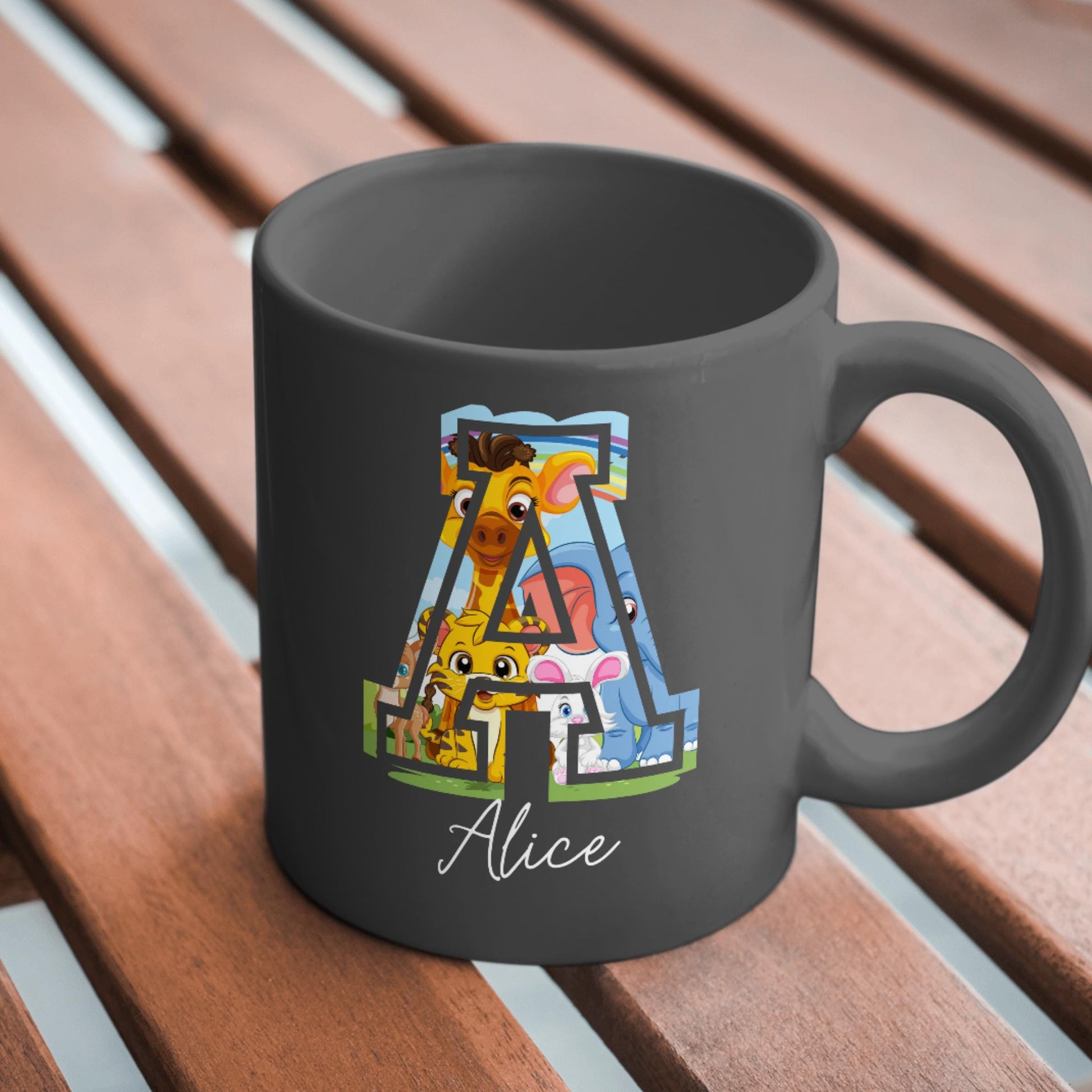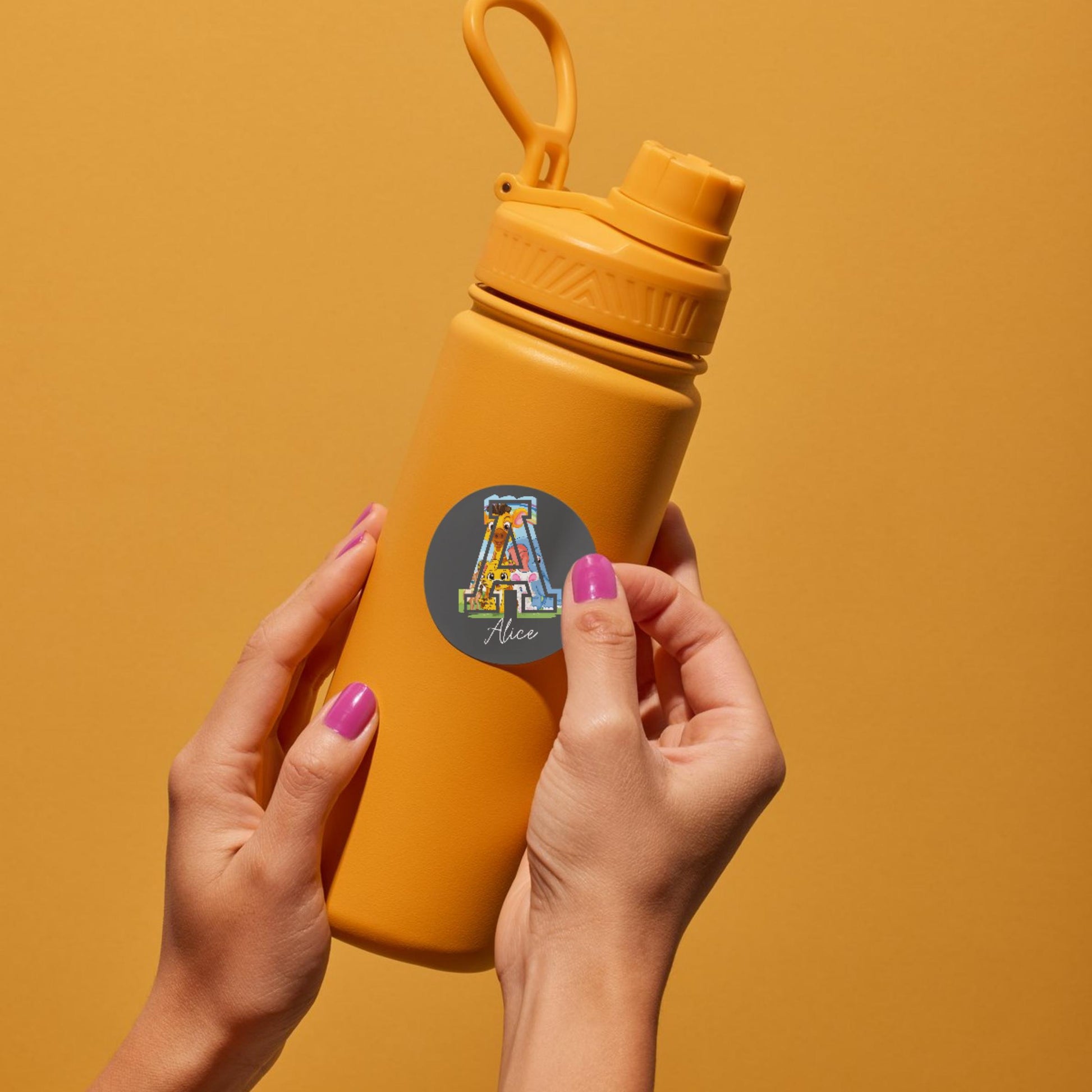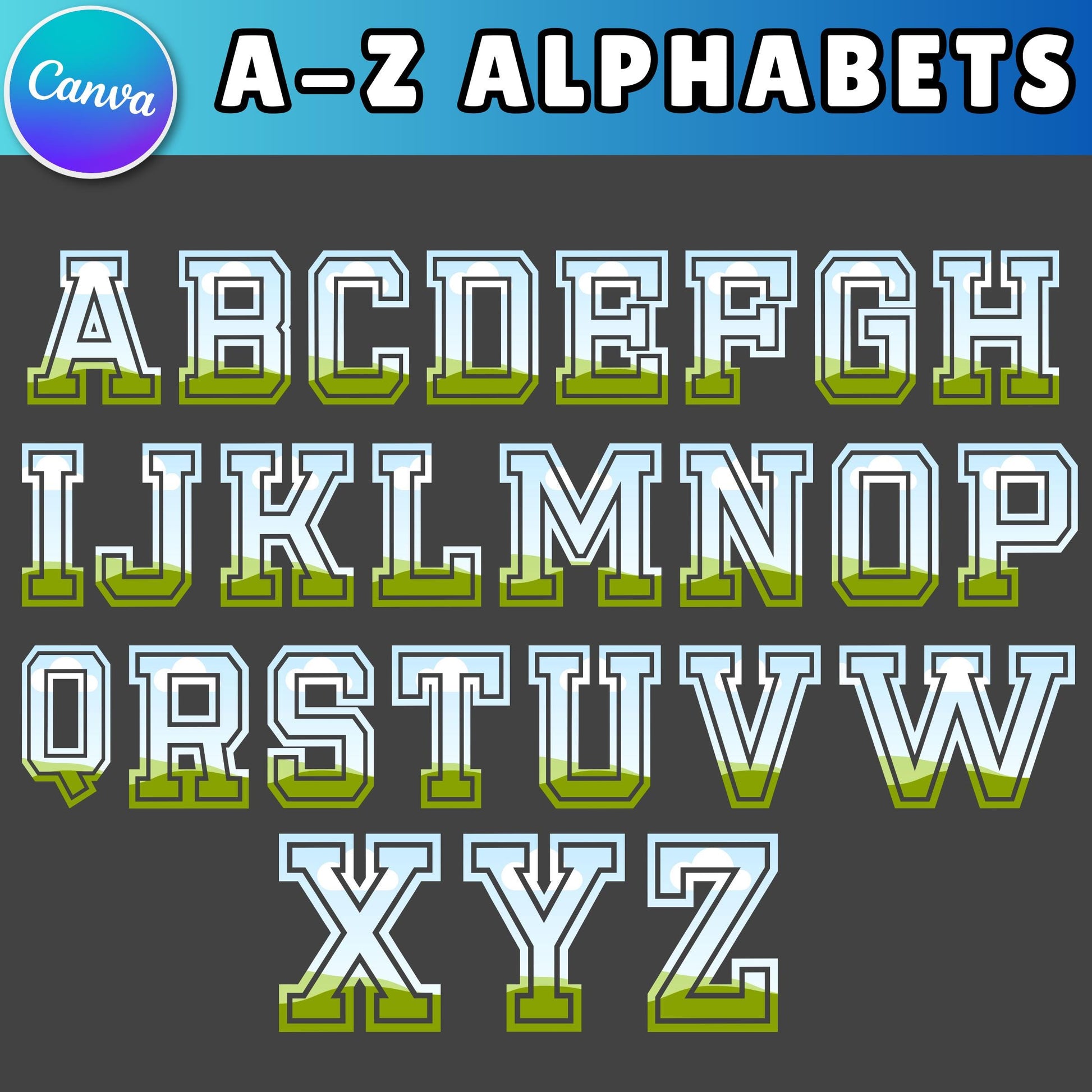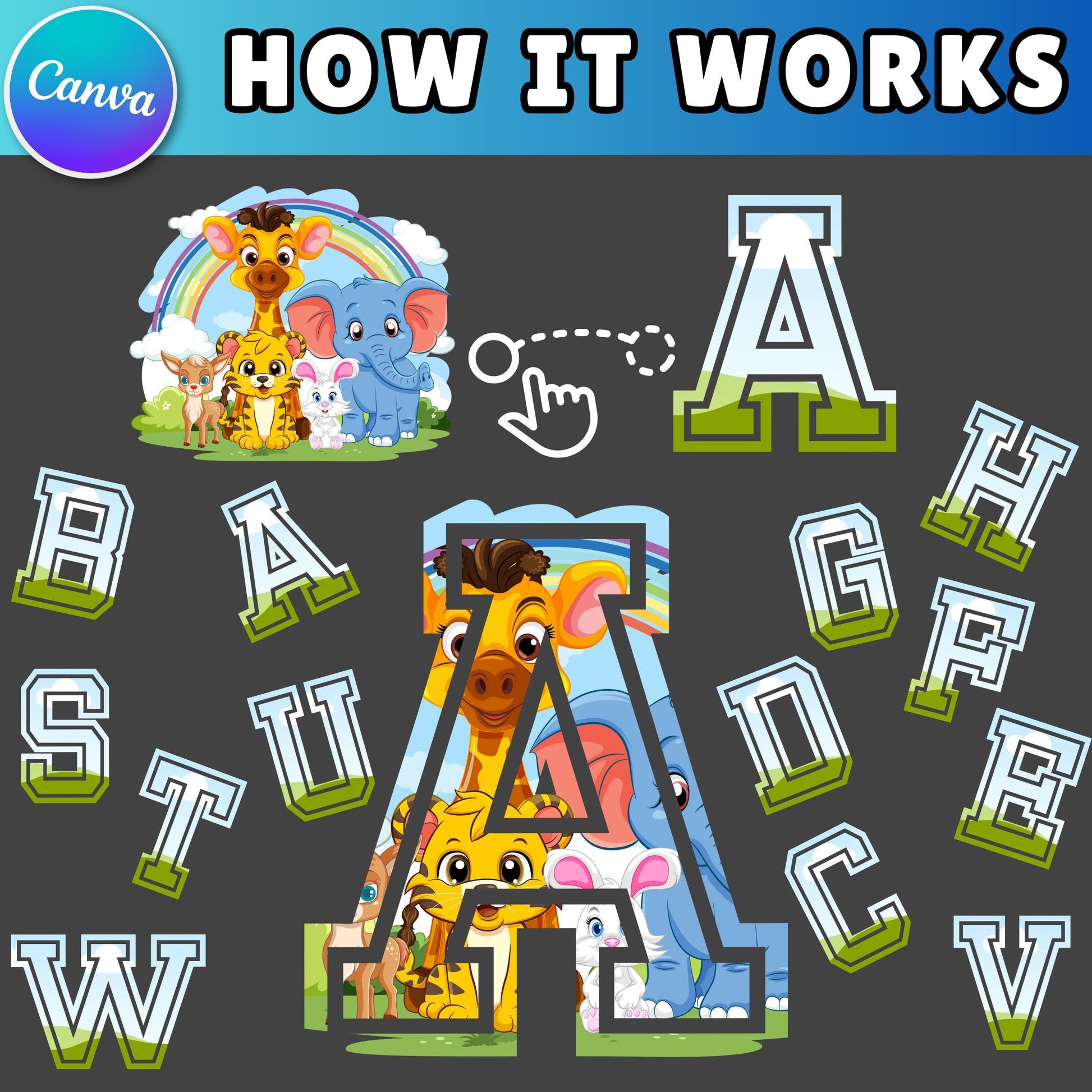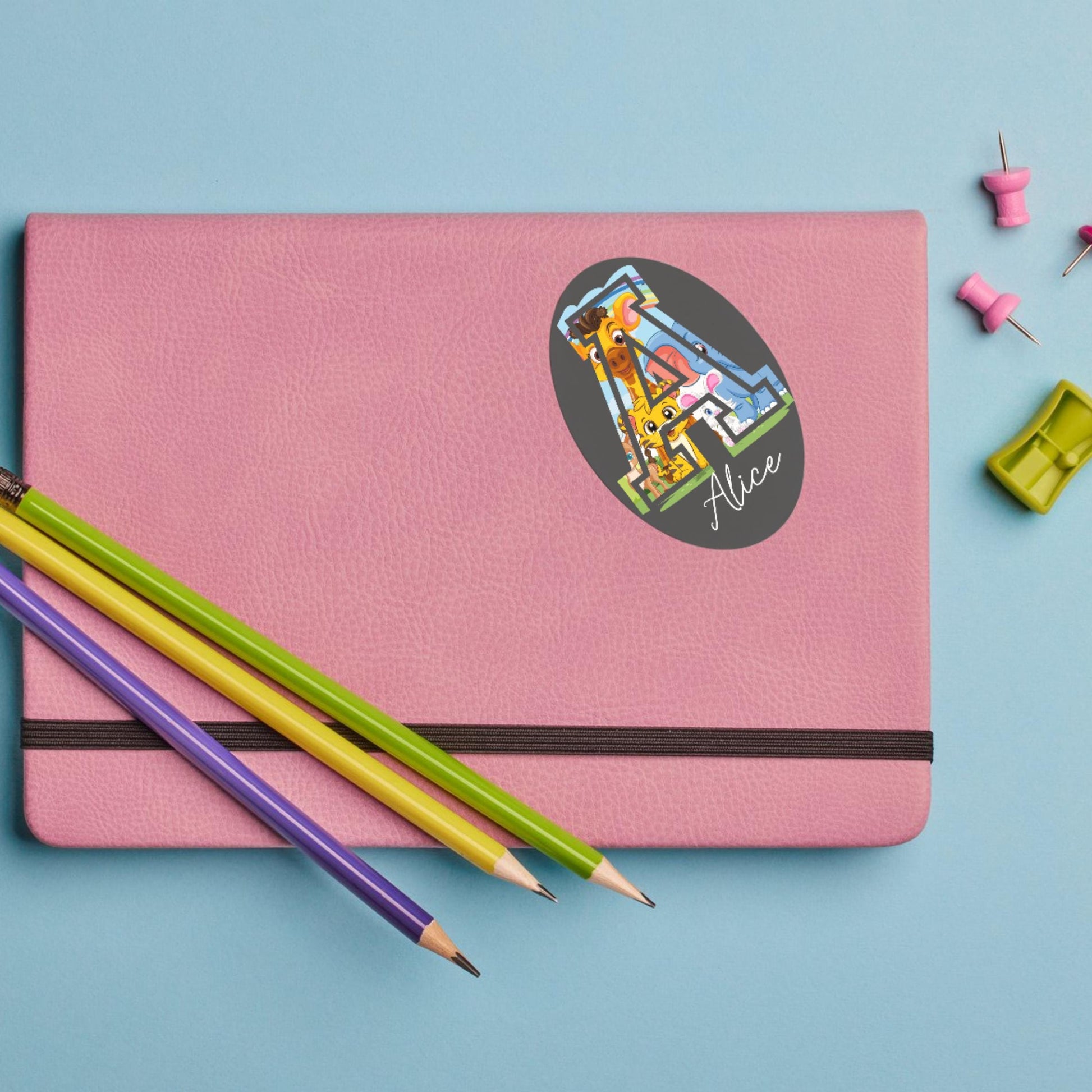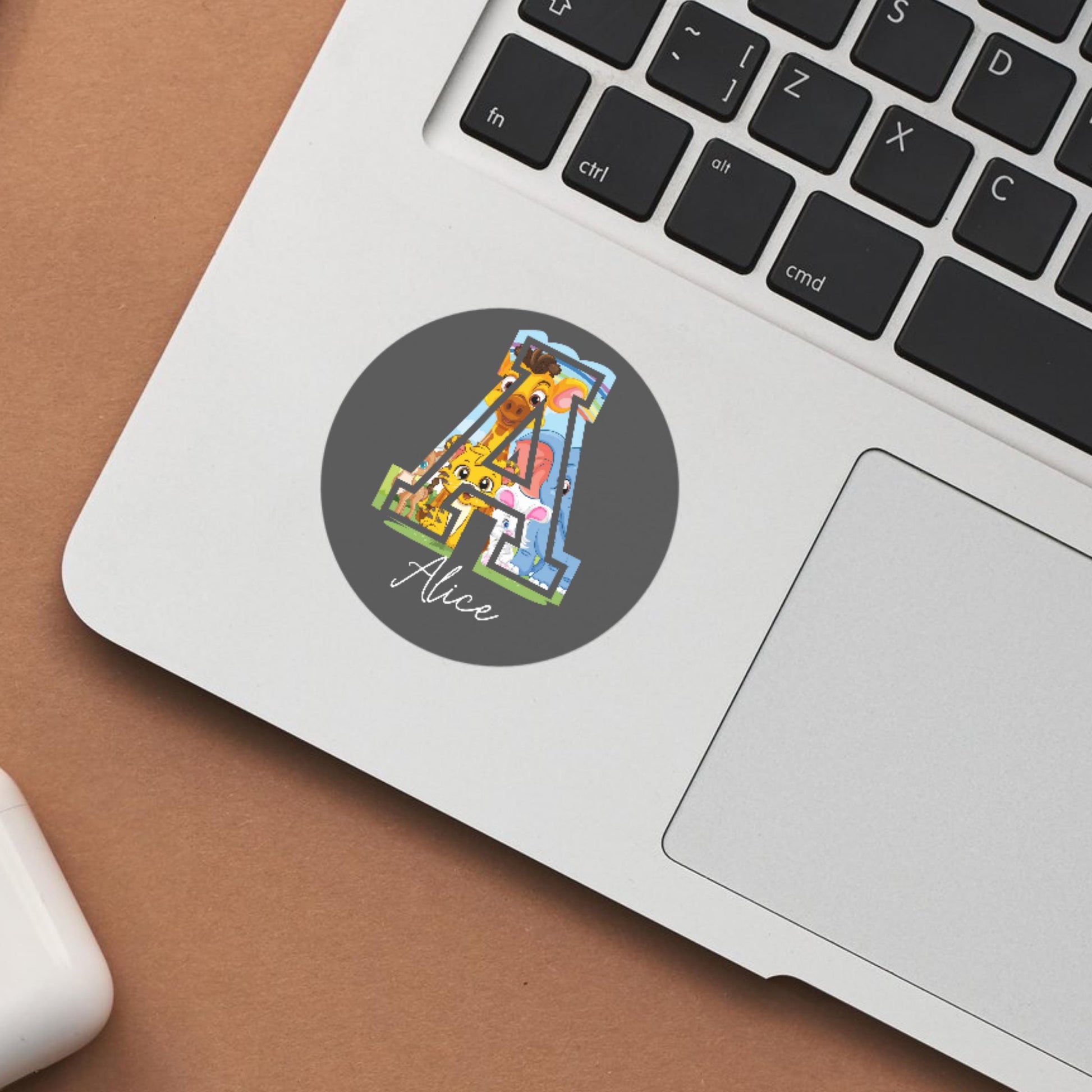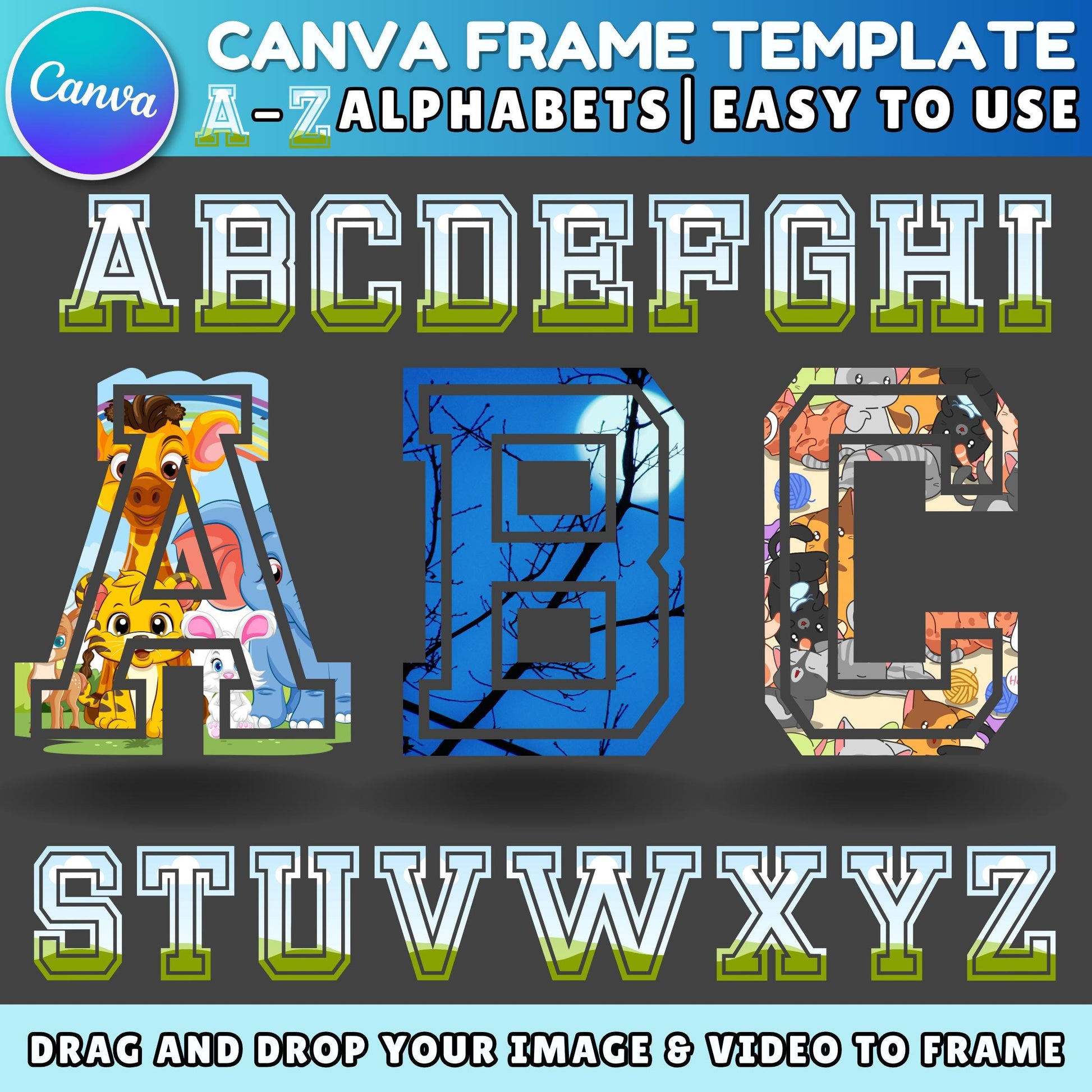
Doodle Alphabet Canva Template | Transparent Hand-Drawn Letters | Editable Font Design | Digital Collage & Printables | Instant Download
### **Canva Bundle Template | Transparent Doodle Alphabet Letters | Editable Blank Font Design | Photo Collage | Printable Digital Download**
Get creative with this **Doodle Alphabet Canva Bundle Template**! Perfect for personalized designs, digital projects, scrapbooking, and DIY crafts. This set includes **transparent alphabet letters** that can be easily edited in Canva or any design software.